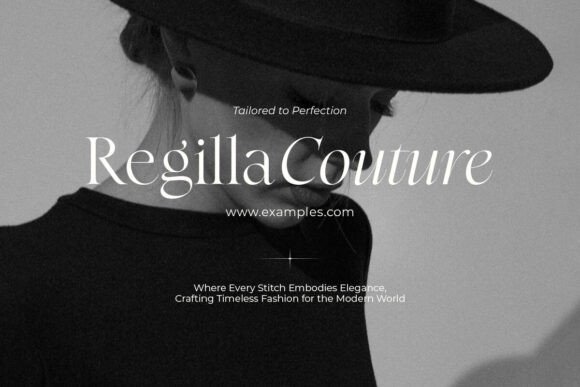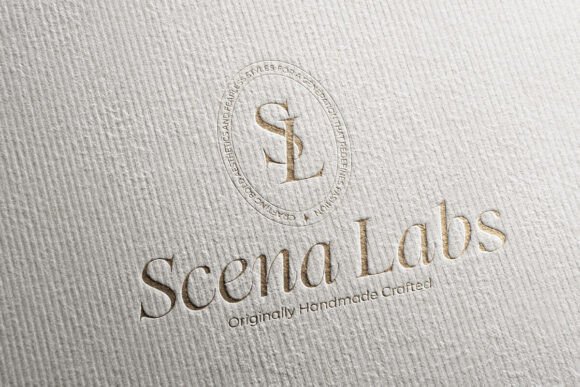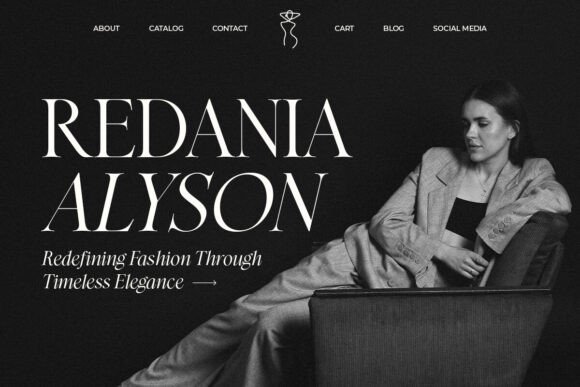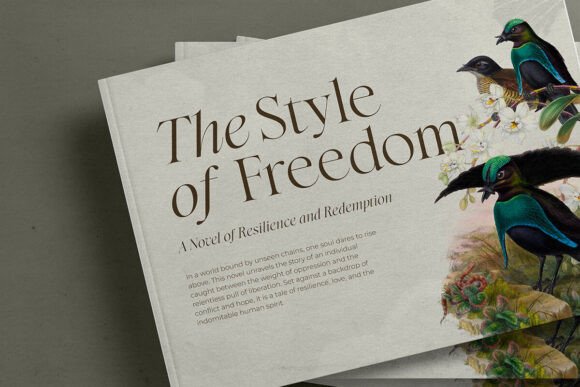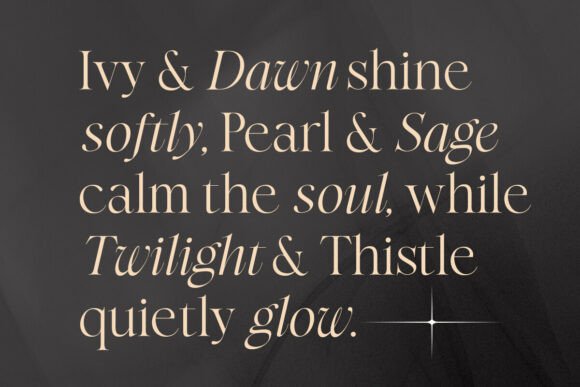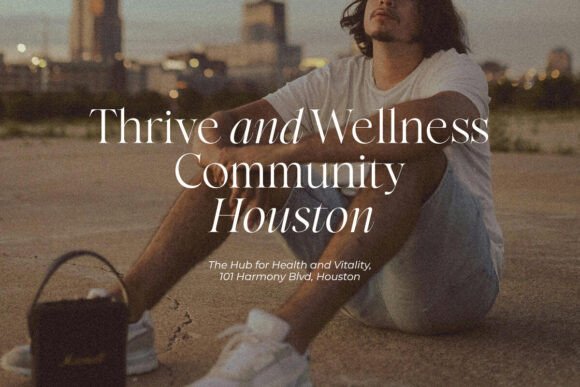
Introduction to Perfect Harmony Font
Perfect Harmony is a classy serif with true italic that have modern, minimalist, and glamour vibes that you can use for any purposes such as wedding invitations, quotes, logo, and branding.
With beautifully crafted, this font is suitable and timeless for any luxurious brand This font also support multi language.
Key Features of Perfect Harmony Font
Why Choose Perfect Harmony Font?
Perfect Harmony Font offers exceptional quality and versatility, making it a valuable addition to your design toolkit. Whether you’re creating for personal projects or commercial use, Perfect Harmony Font delivers professional results.